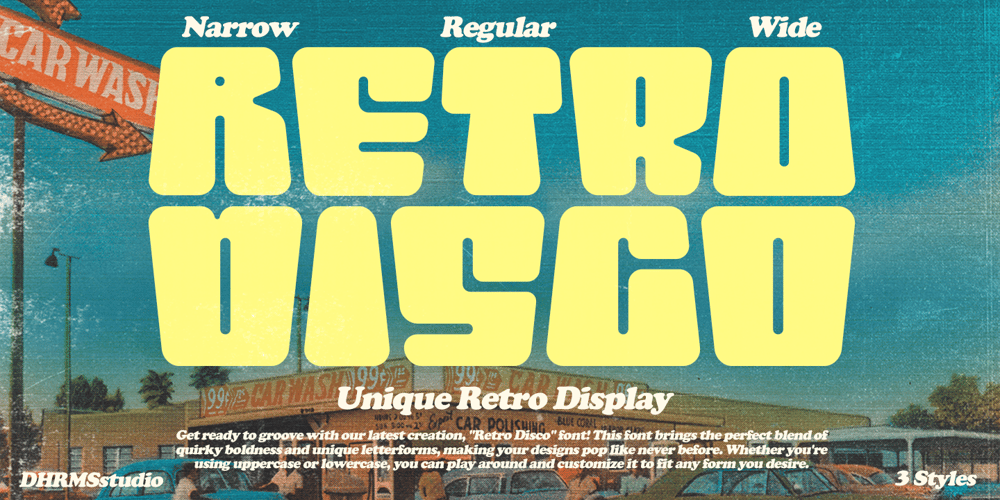
Retro Disco
Retro Disco font
Retro Disco Font Family was designed by Ahmad Jamaludin and published by Ahmad Jamaludin. Retro Disco contains 3 styles and family package options. Get ready to groove with our latest creation, RETRO DISCO font!RETRO DISCO brings the perfect blend of quirky boldness and unique letterforms, adding a dash of playfulness to your designs.With RETRO DISCO, the fun doesn’t stop! You can easily play around with its uppercase and lowercase modes to find the perfect fit for any form you desire.But that’s not all – we’ve taken it up a notch by offering 3 widths for each type: Narrow, Regular, and Wide! So no matter the project, this font is here to serve your creative needs.Features: Retro Disco Main File Has 3 Variable: Narrow – Regular – Wide Instructions (Access special characters, even in Cricut Design) Unique Letterforms Works on PC & Mac Simple Installations Accessible in Adobe Illustrator, Adobe Photoshop, Microsoft Word even work on Canva! PUA Encoded Characters Fully accessible without additional design software. Join the party and let RETRO DISCO be the life of your design projects. Embrace the groovy vibes and create something truly unforgettable!Enjoy Designing!Dharmas Studio